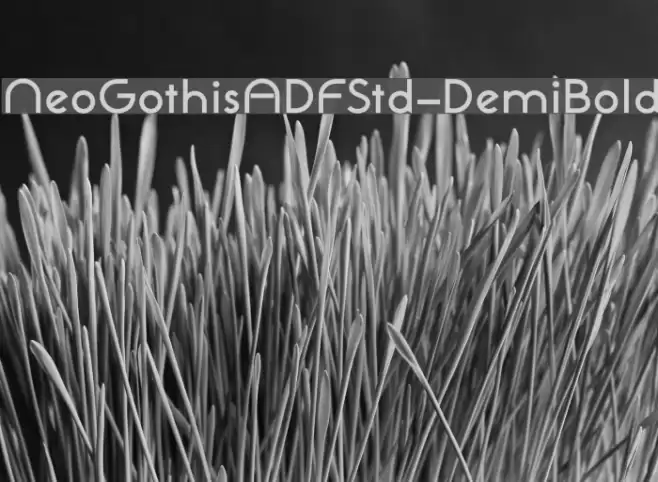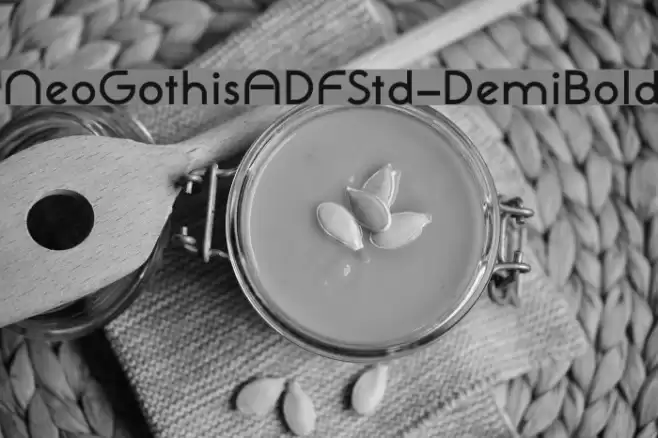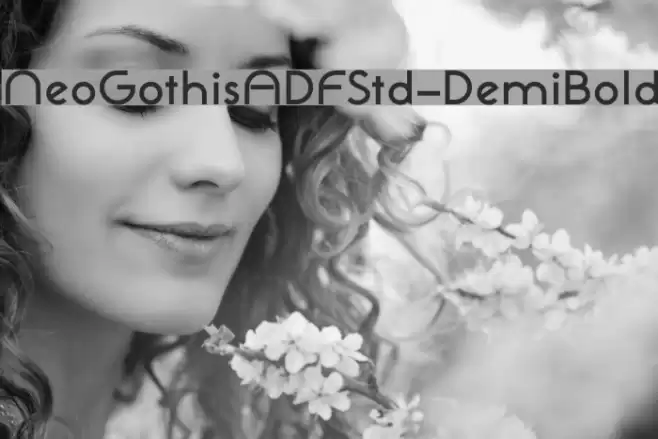
NeoGothisADFStd-DemiBold Font
NeoGothisADFStd-DemiBold Description
This font features a bold and modern aesthetic with clean, geometric lines and a uniform stroke width. The characters are well-balanced, offering a contemporary look that is both stylish and functional. The uppercase letters are slightly taller than the lowercase, providing a distinct hierarchy. The numerals are clear and easy to read, making them suitable for various applications. Special characters are designed with the same attention to detail, ensuring consistency across the typeface. This font is ideal for projects that require a modern and professional appearance.
A bold, modern font with clean, geometric lines and uniform stroke width from Uncategorized fonts.
- Proposed Projects: Ideal for branding, advertising, web design, and editorial projects.
- Use Case: Headlines, Logos, Branding